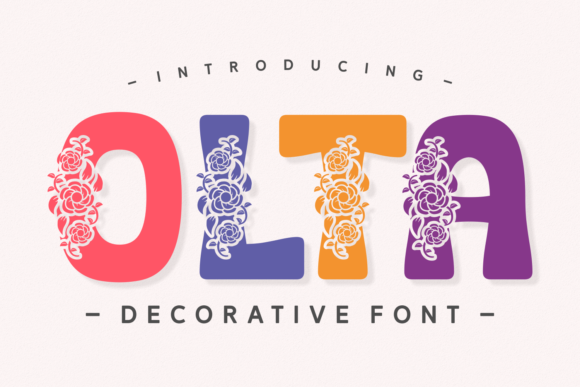
Olta Font
Journey into the realm of enchanting aesthetics with Olta Font, a decorative masterpiece crafted by Creative Fabrica Fonts. Inspired by the captivating charm of spring, Olta is not just a font; it's an artistic expression that brings a touch of elegance and whimsy to your creative projects.
Immerse yourself in the beauty of tall and thick characters, adorned with intricate flower designs that bloom with life on each letterform. Olta Font is a visual symphony, a harmonious fusion of nature's allure and typographic artistry. Let your imagination flourish as you explore the endless possibilities that await.
Unleash your creativity with Olta Font, the perfect companion for monogram designs, packaging, clothing, fashion, posters, covers, t-shirts, and more. Its versatility knows no bounds, allowing you to transform ordinary designs into captivating works of art.
Elevate your projects with Olta Font, a font that captivates the senses and leaves a lasting impression. Each character is a delicate brushstroke, a testament to the meticulous artistry that went into its creation. Discover the magic of Olta Font and embark on a creative journey like no other.